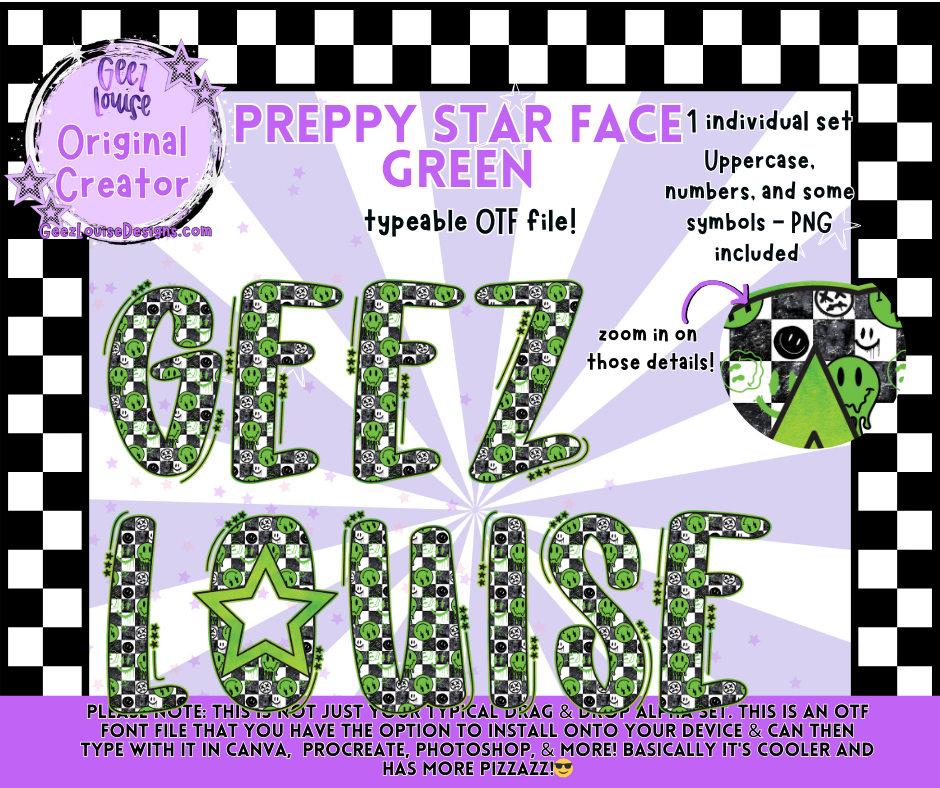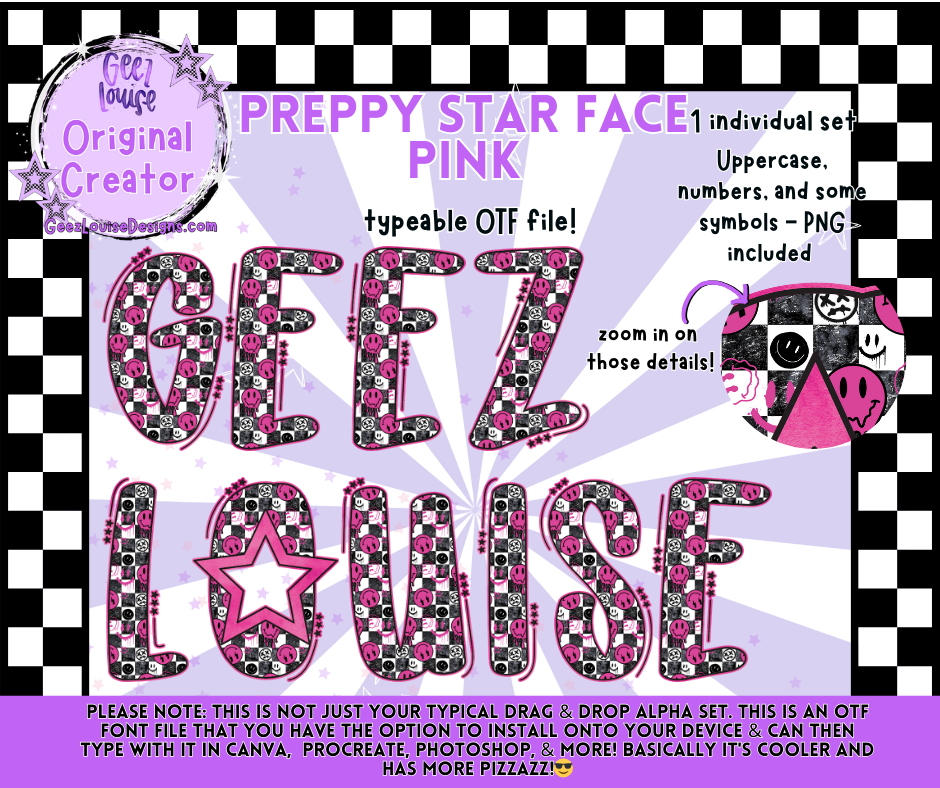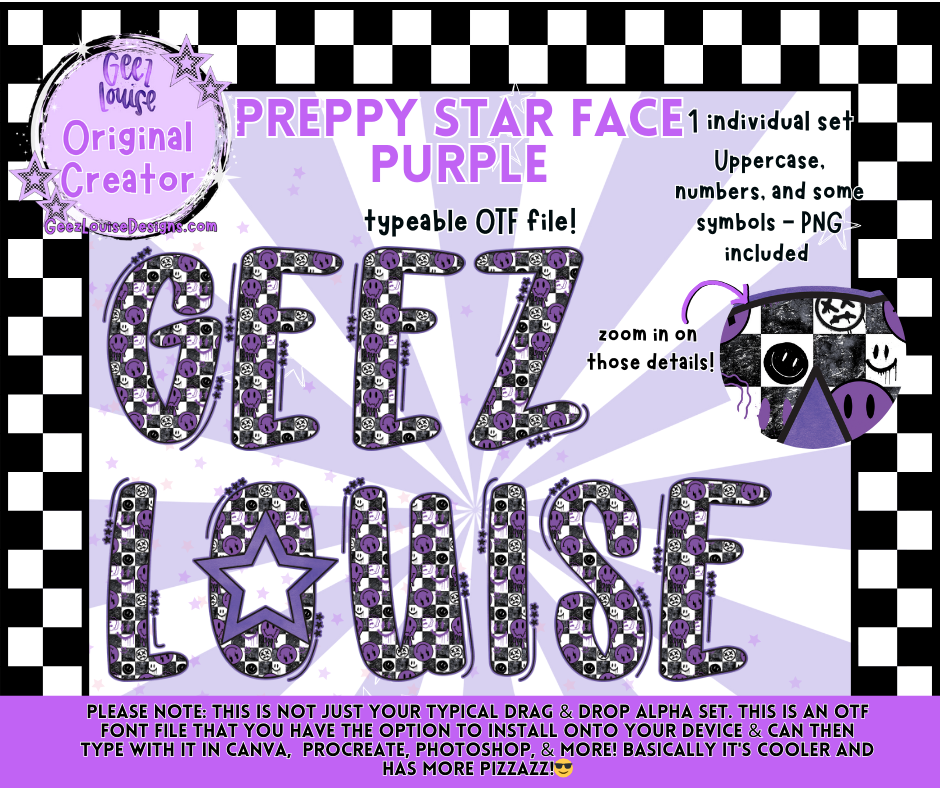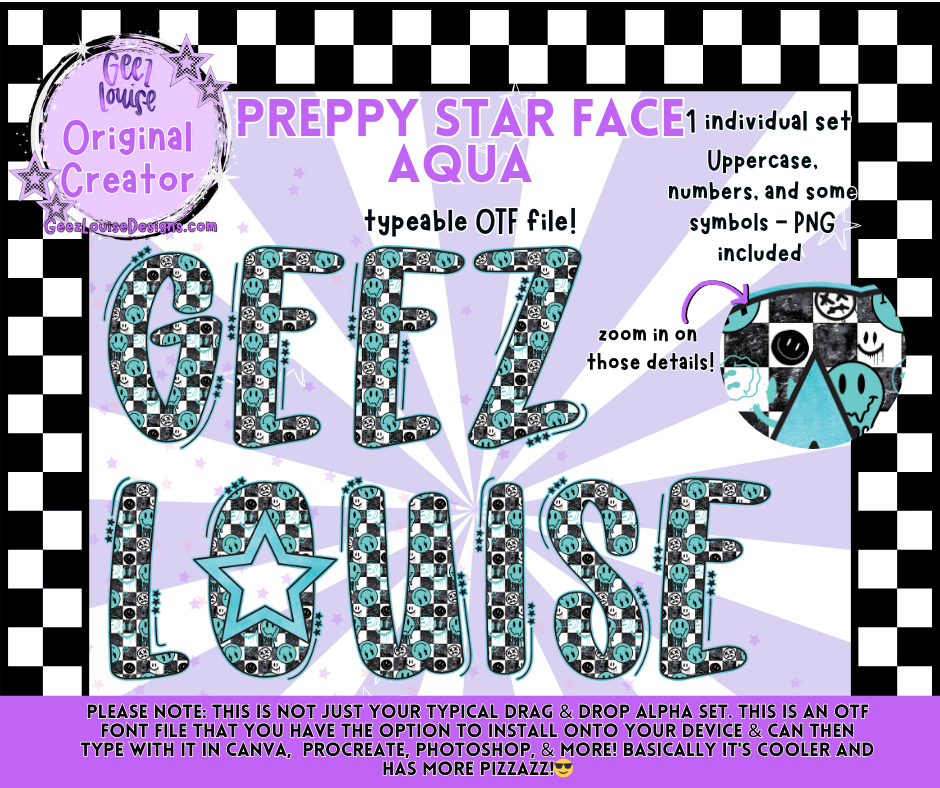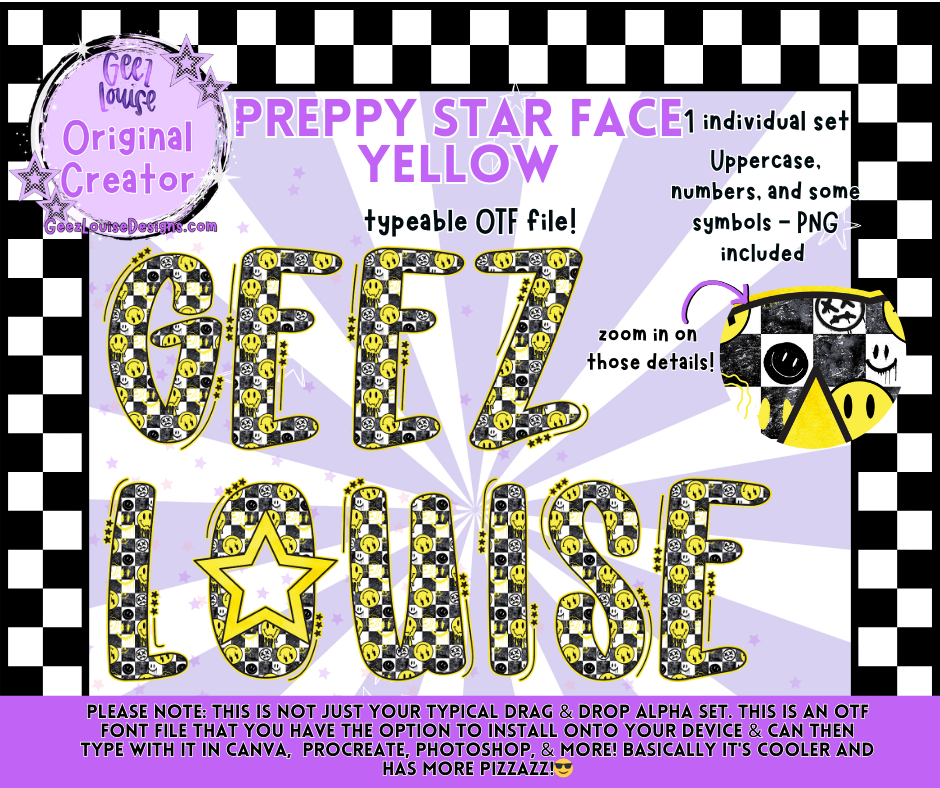
Aqua • Green • Pink • Purple • Yellow — Choose your chaos
PREPPY STAR FACE isn’t just a font—it’s a whole cast of characters. Loud, bratty, mysterious, sweet, unhinged... you decide who shows up in your design. This listing lets you build your own bundle from five color-coded personalities, each with its own vibe and visual flair.
🧠 Perfect For:
• Alt merch drops
• Caption challenges
• Zines, stickers, and scrapbook chaos
• Emotional branding
• Making your text feel like a character
Whether you’re building a scene-core tee empire or just want your captions to bite back, PREPPY STAR FACE is here to help your words misbehave beautifully.